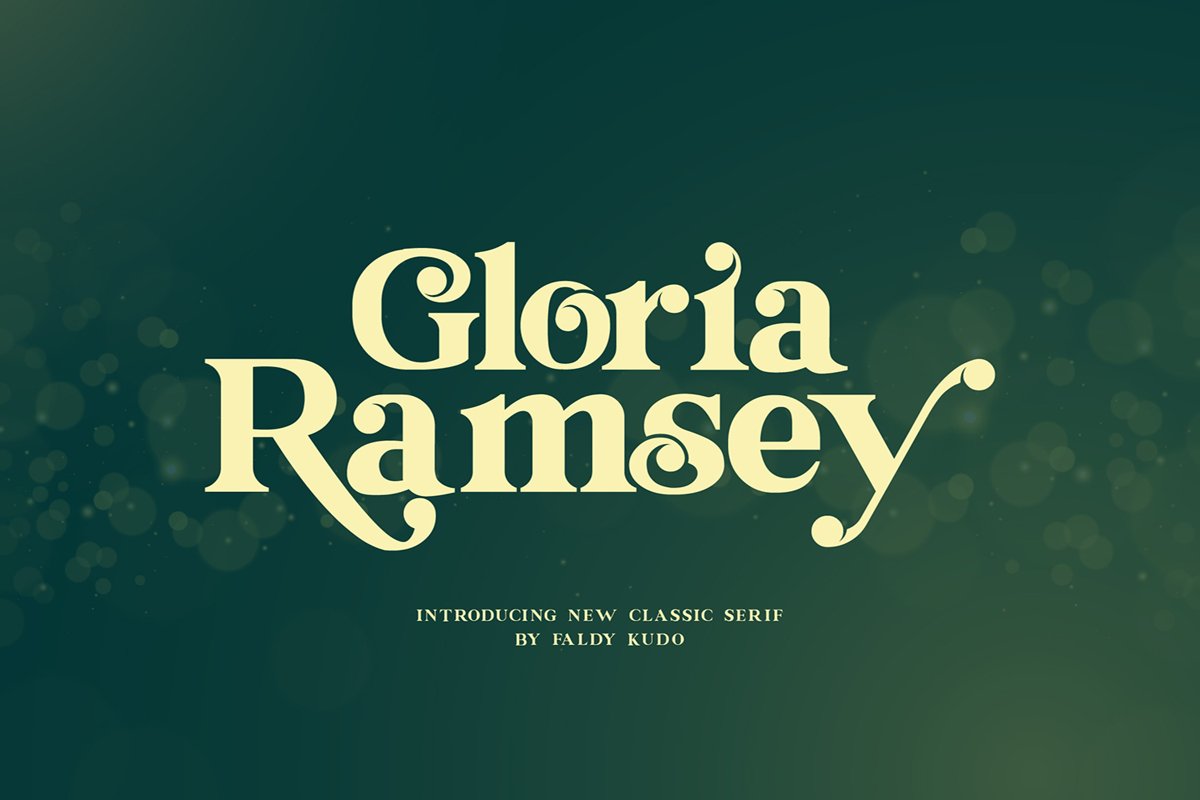
Gloria Ramsey - Two Faced Serif
Gloria Ramsey - Italic
Introducing "Gloria Ramsey" two faced classic serif font - Fancy Typefaces with tons of alternative characters, and unique ornaments,
You can display the Elegant Typography Style simply by adjusting the spacing between the letters.
Gloria Ramsey is very versatile fonts. Perfect for branding projects, logos, magazine imagery, wedding invitations, posters, clothing, packaging, website headers, or simply as a stylish text overlays to any background image.
* Gloria Ramsey - Regular
* Gloria Ramsey - Italic